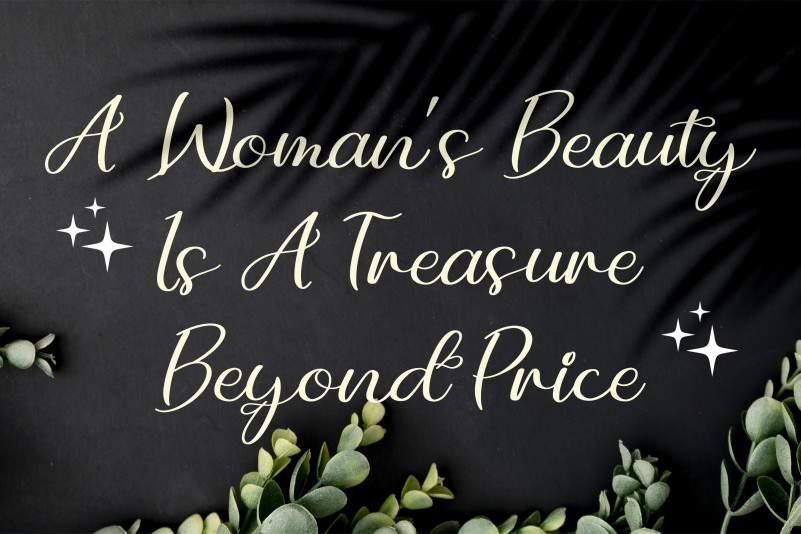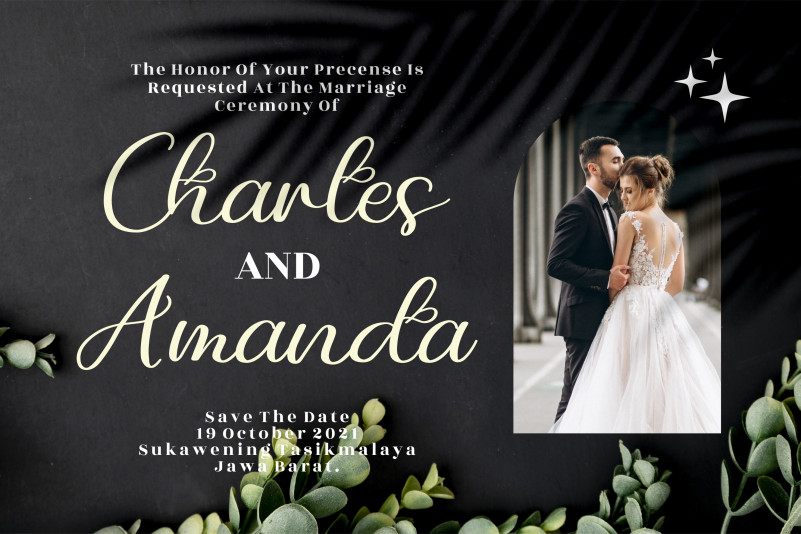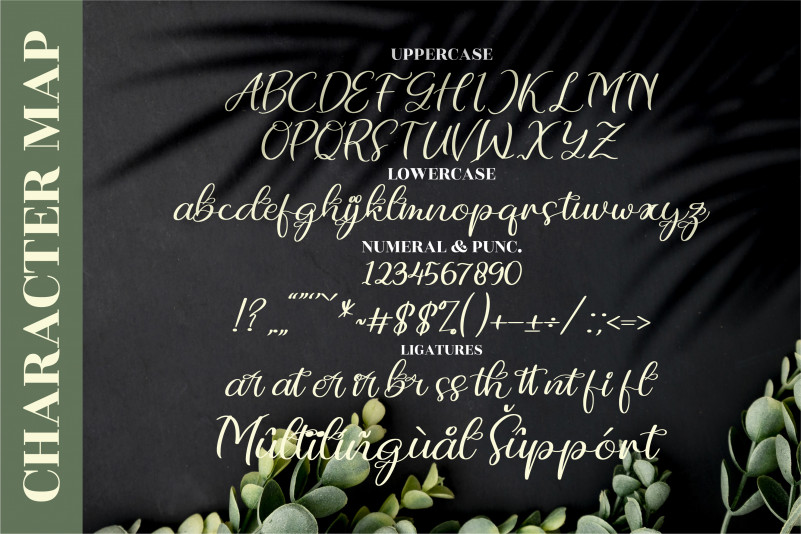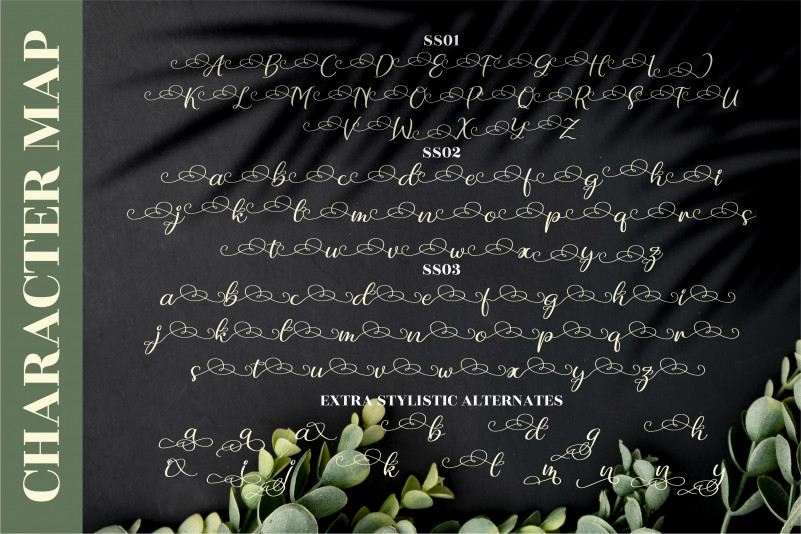
The Sunday Lovely Calligraphy Font
It’s a romantic calligraphy font, suitable for any projects such as: logos, branding projects, homeware designs, product packaging, mugs, quotes, posters, shopping bags, t-shirts, book covers, name card, invitation cards, greeting cards, label, photography, watermark, special events, and all your other lovely projects that need a beautiful script taste.